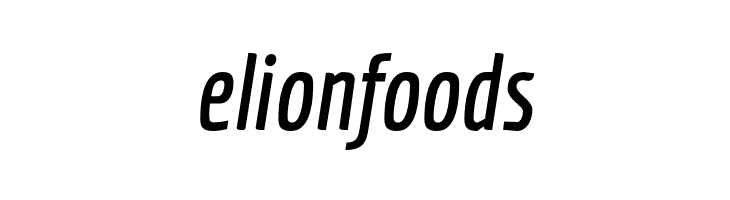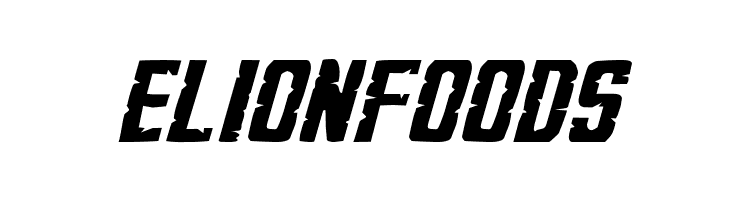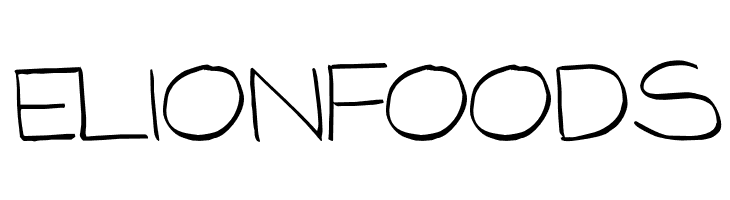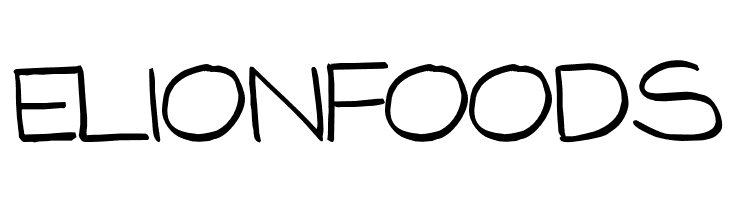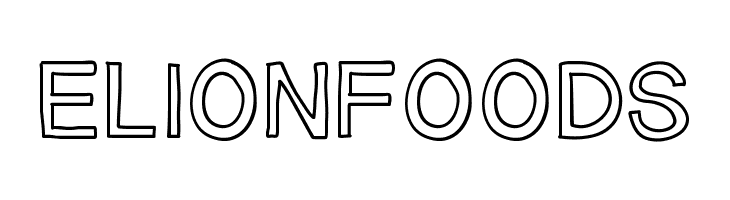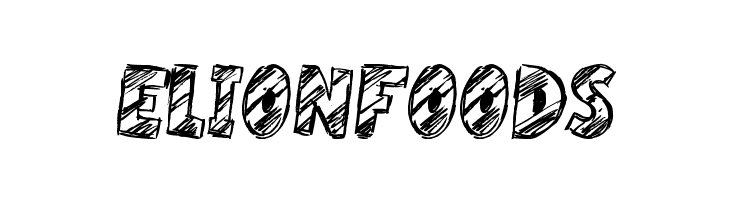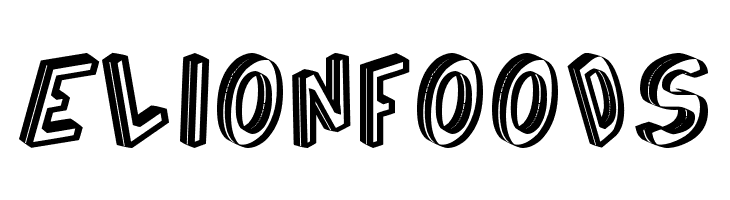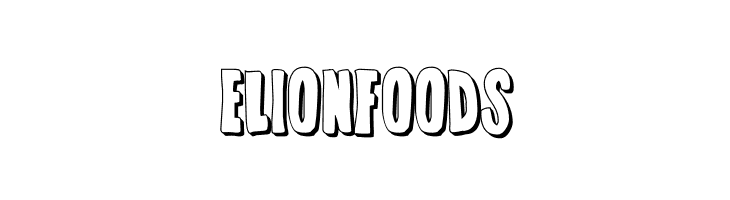
A modern, bold italic font with a sleek, condensed design.
A playful, hand-drawn font with bold, rounded characters and a dynamic slant.
A bold, expanded, and italic font with a rugged, dynamic style.
A playful, comic-inspired font with a hand-drawn, whimsical style.
A playful, comic-style font with a hand-drawn, energetic appearance.
A bold, dynamic font with blocky, irregular characters and a retro comic book style.
A playful, bold outline font with a comic book feel.
A bold, sketch-like font with a playful and dynamic style.
A bold, 3D font with a playful, comic book style.
A bold, playful outline font with a retro comic book style.